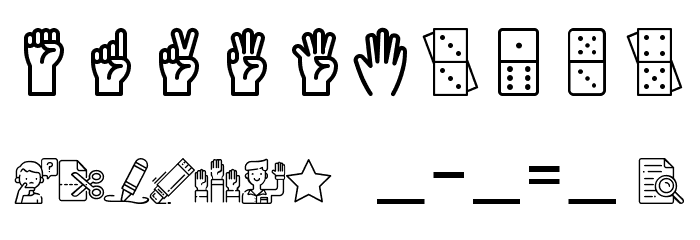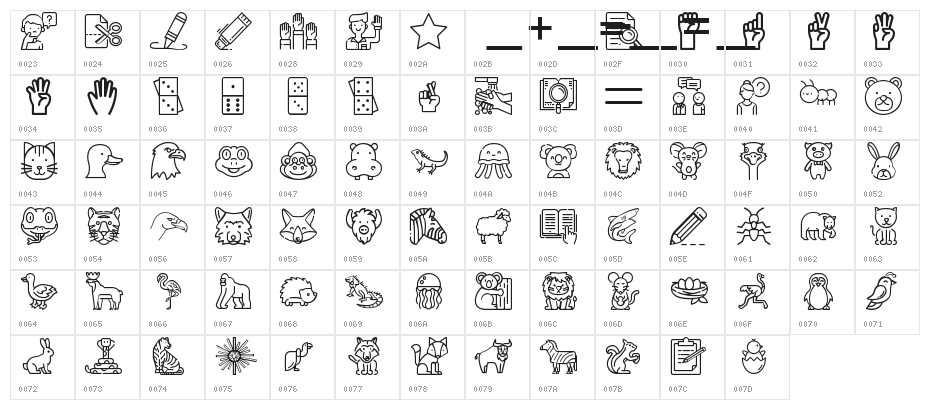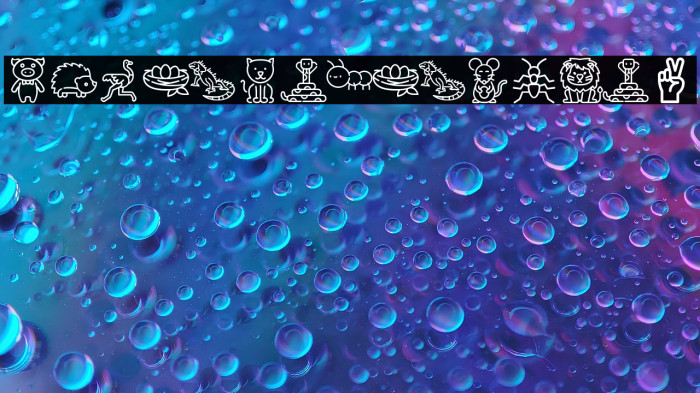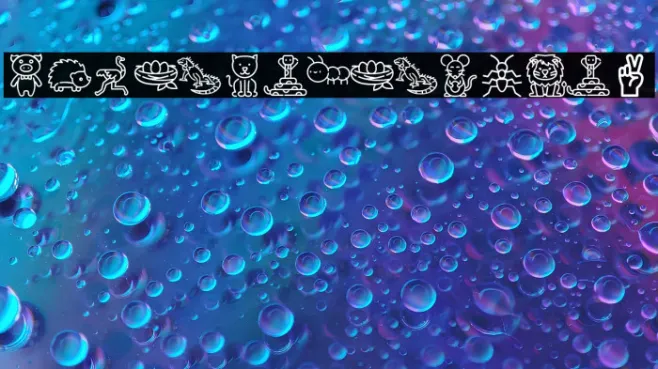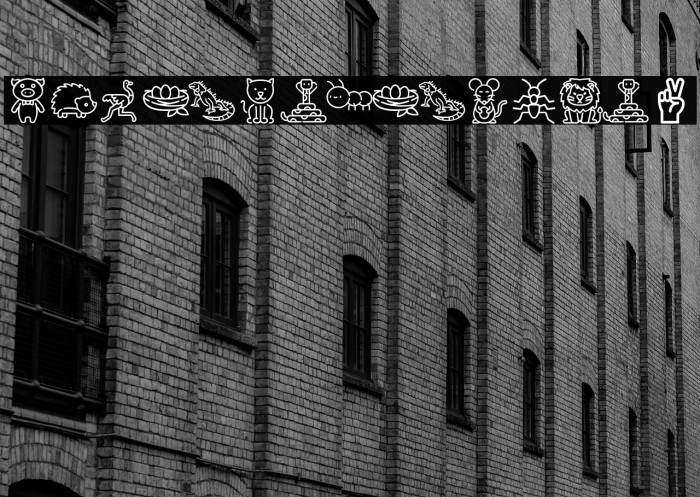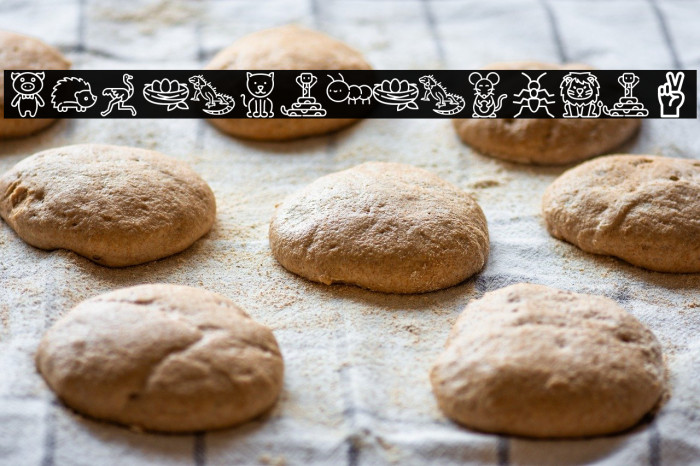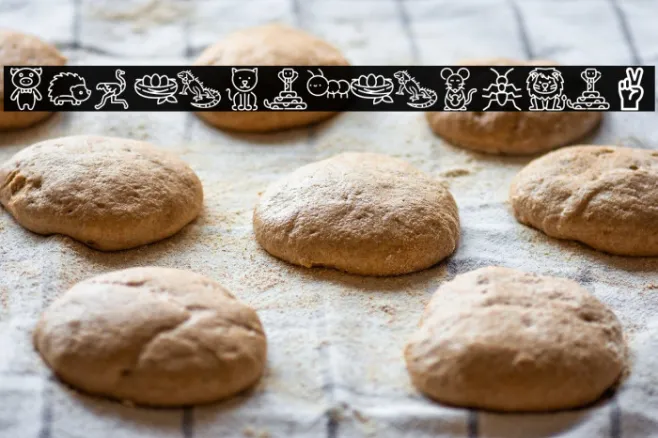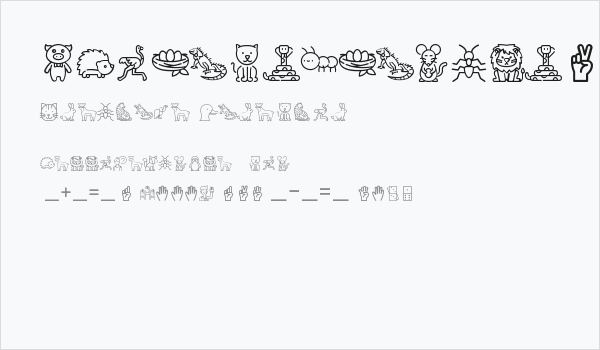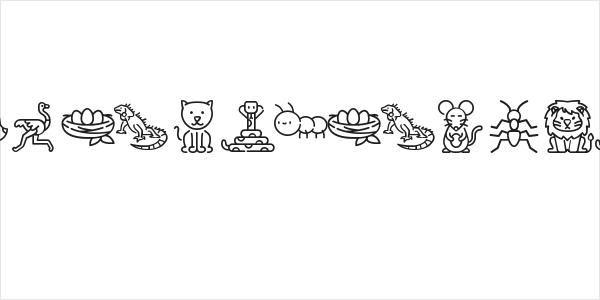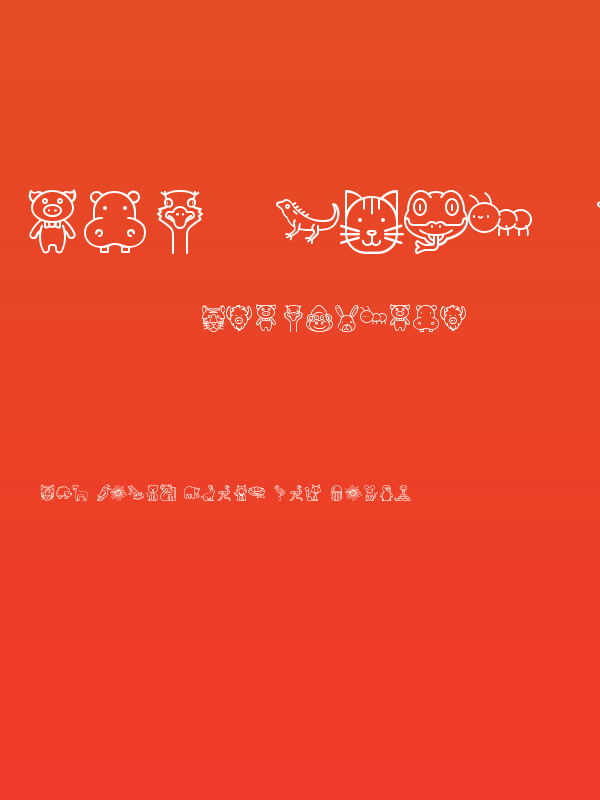
PhonicsAnimals2 Font
PhonicsAnimals2 Description
| Overall Style | Playful, Educational, Decorative |
| Use Case | Icons, Educational graphics, Visual aids, Classroom decor |
| Proposed Projects | Children's educational materials, phonics worksheets, classroom posters, activity books, interactive learning apps. |